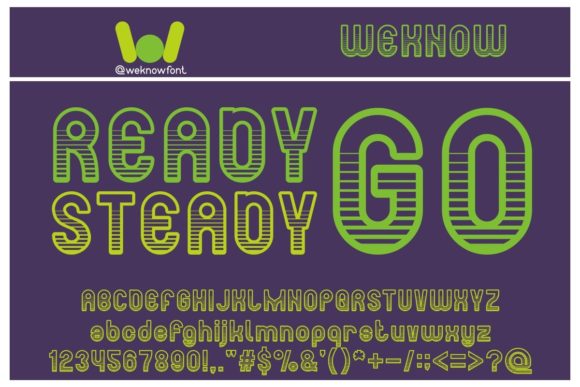
Step into a world of captivating designs with Ready Steady Go, the ultimate display font crafted to turn your creative visions into reality. This font is not just a collection of letters; it's an artistic journey waiting to be embarked upon. Let your imagination run wild as you explore the endless possibilities Ready Steady Go has to offer.
Dive into a sea of creativity with Ready Steady Go, the remarkable display font that will transform your designs into masterpieces. Its exquisite curves and elegant lines dance harmoniously, inviting you to craft designs that resonate with sophistication and intrigue.
Unleash your storytelling prowess with Ready Steady Go, the font that breathes life into your words. Its bold personality demands attention, making it the perfect choice for headlines, posters, and branding projects that demand a bold statement.
Embrace the power of uniqueness with Ready Steady Go, the font that sets your designs apart from the ordinary. Its captivating style commands attention, ensuring your creations leave a lasting impression on your audience.